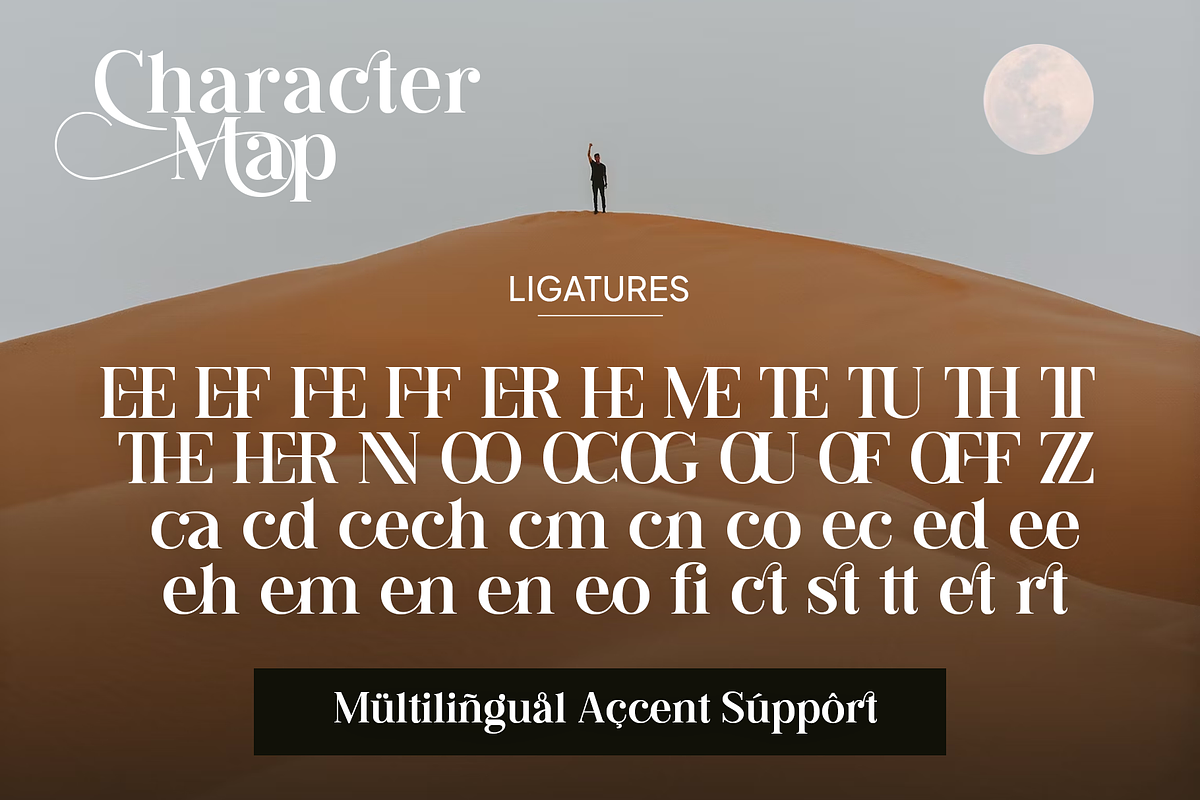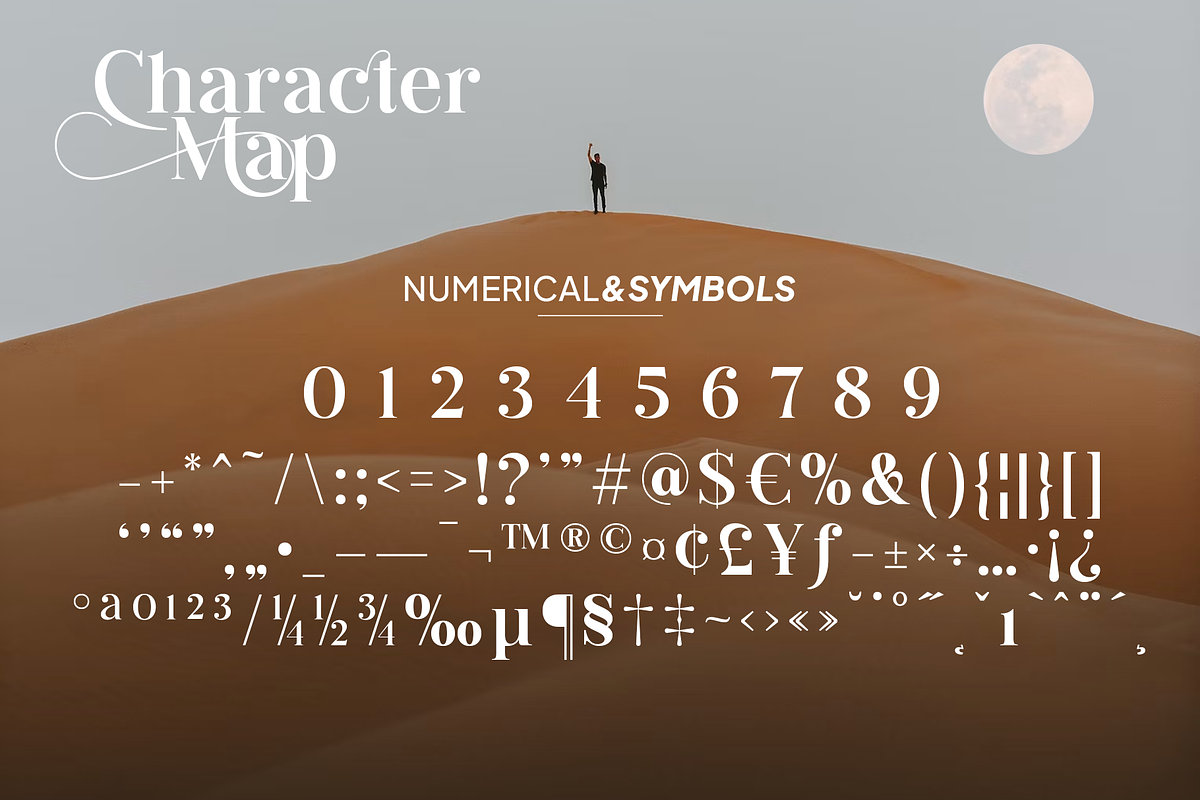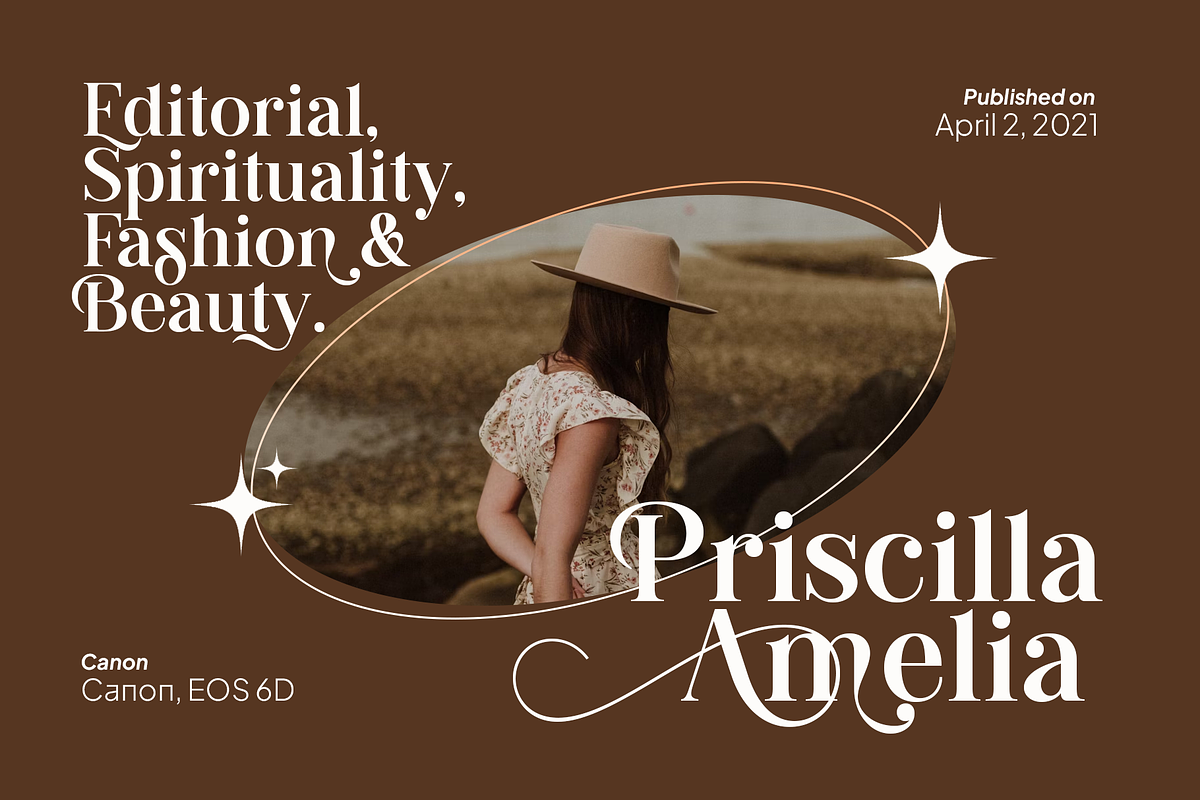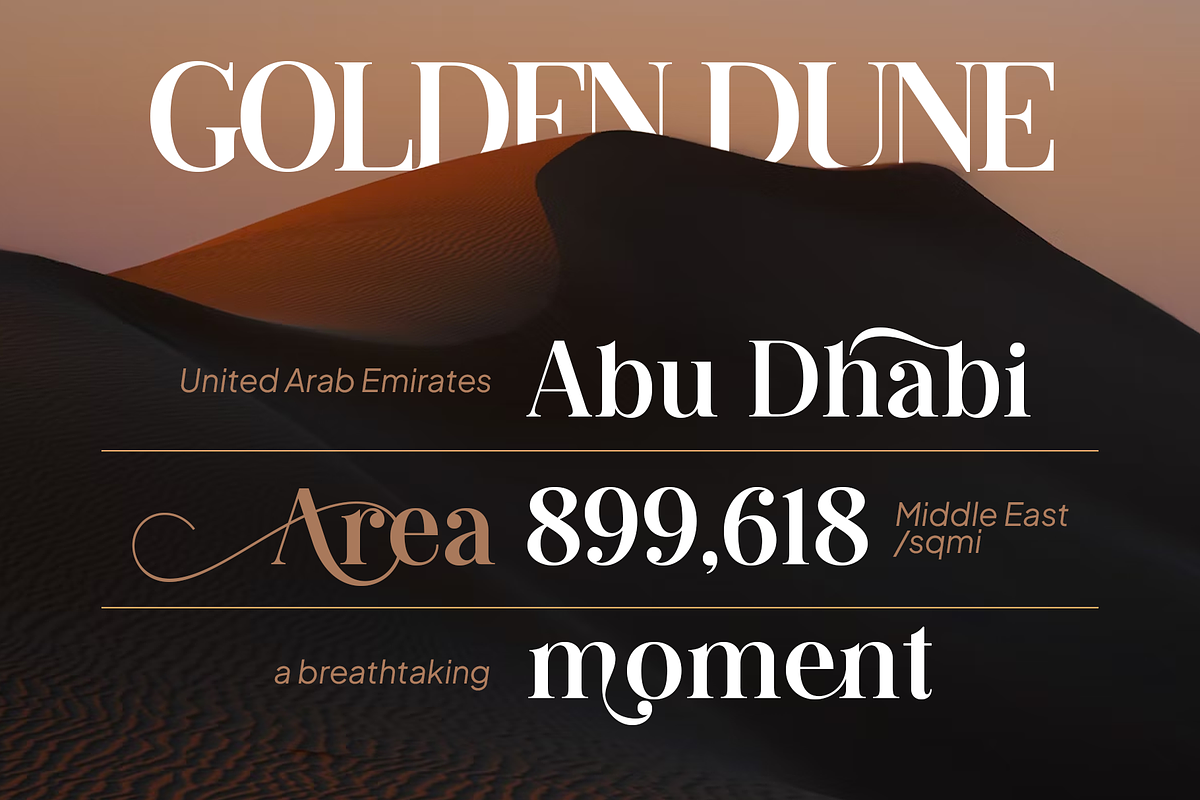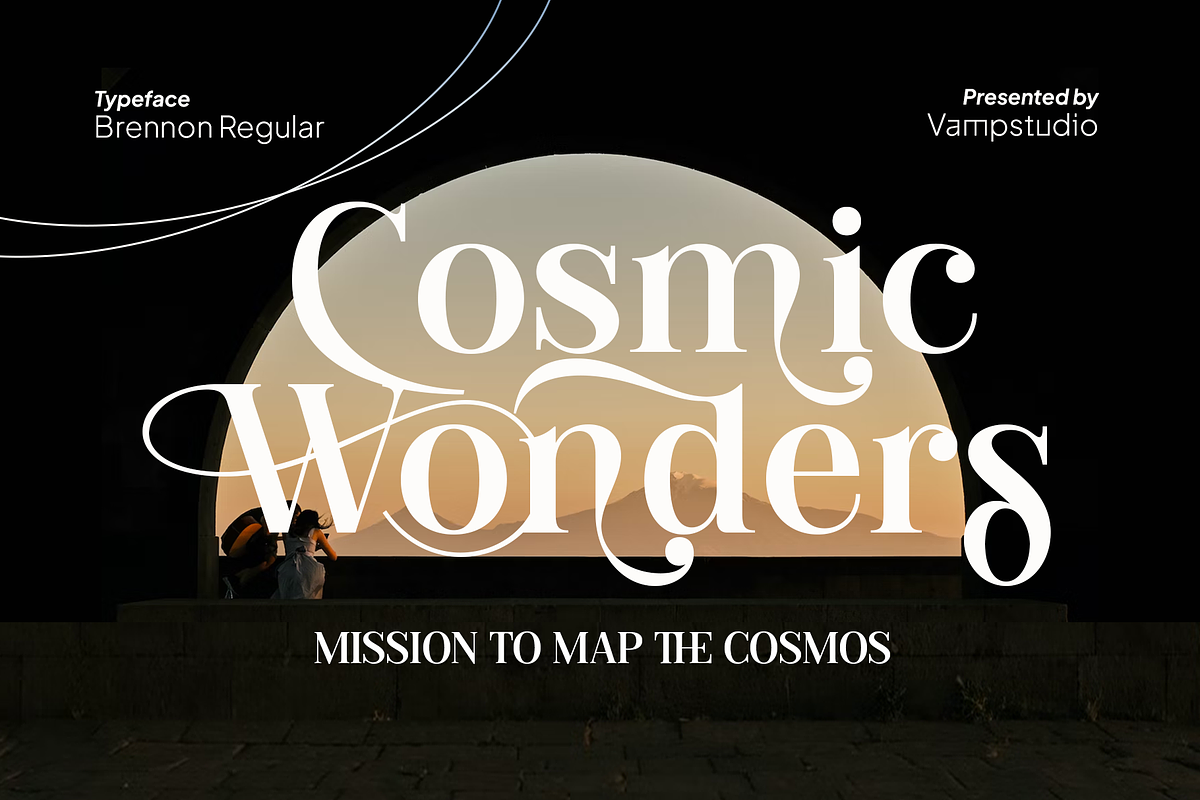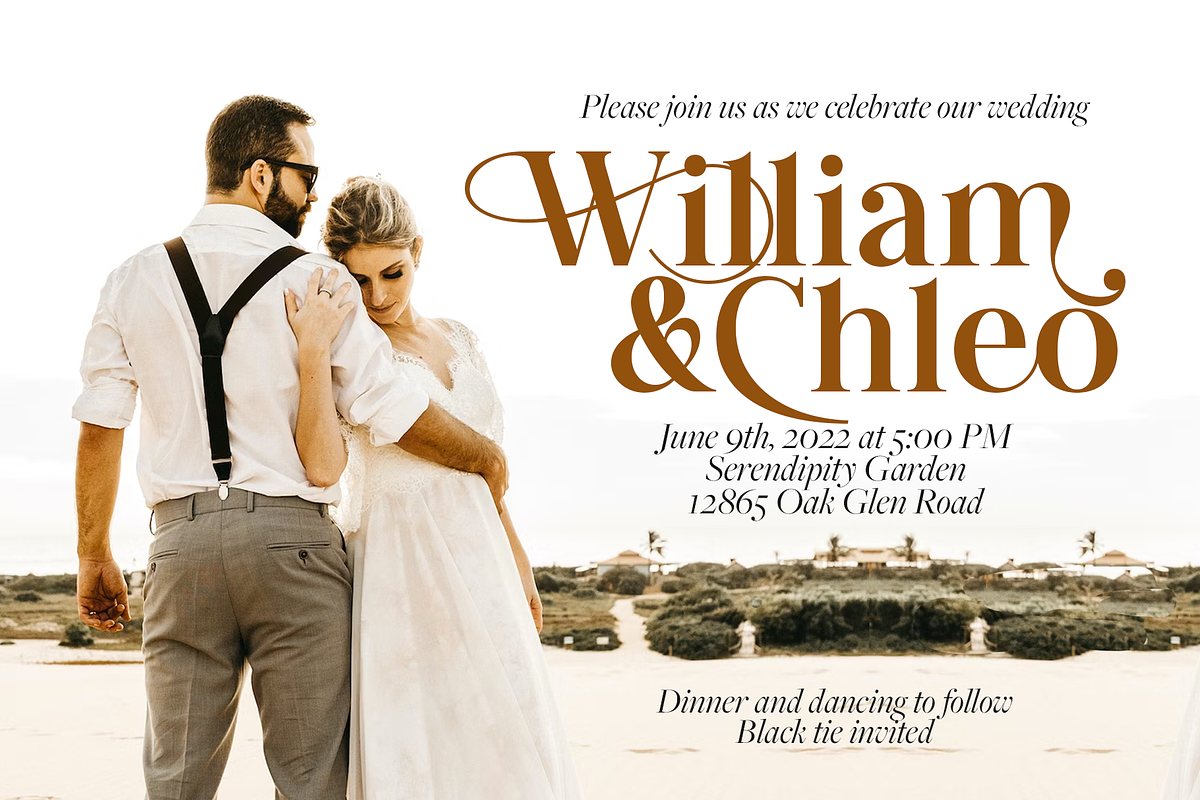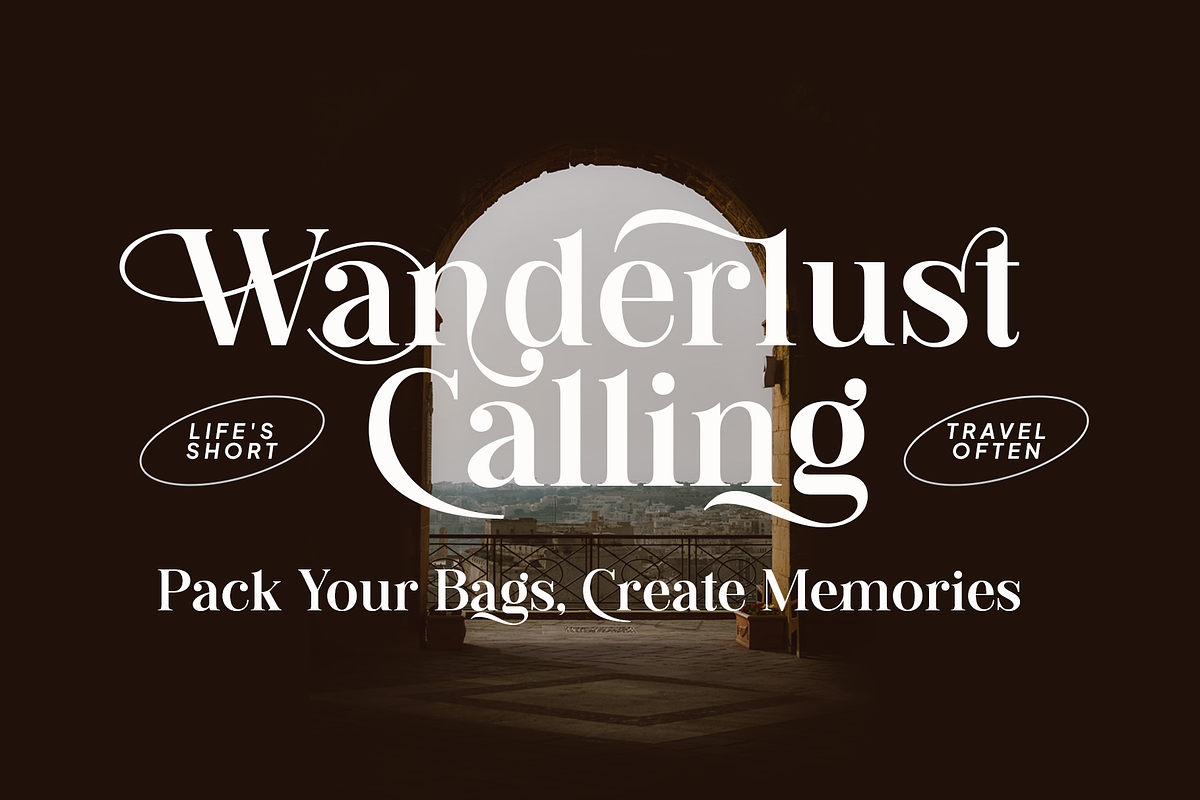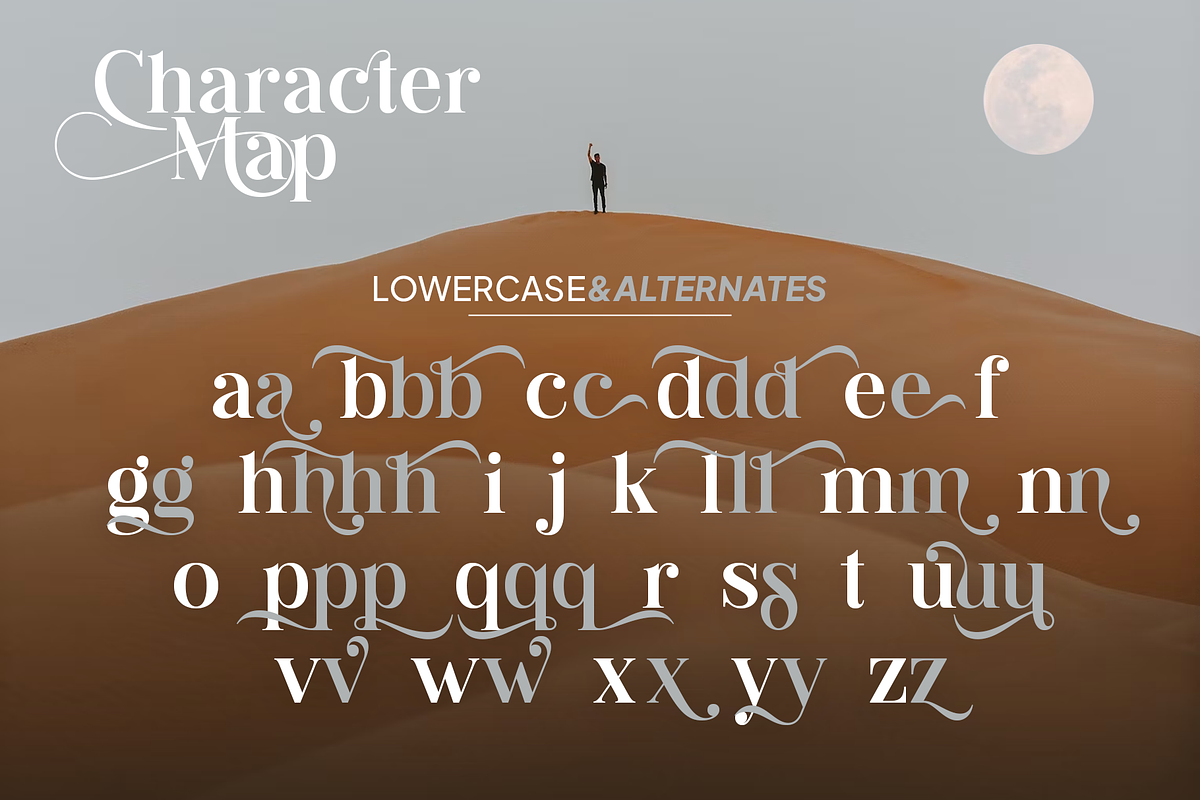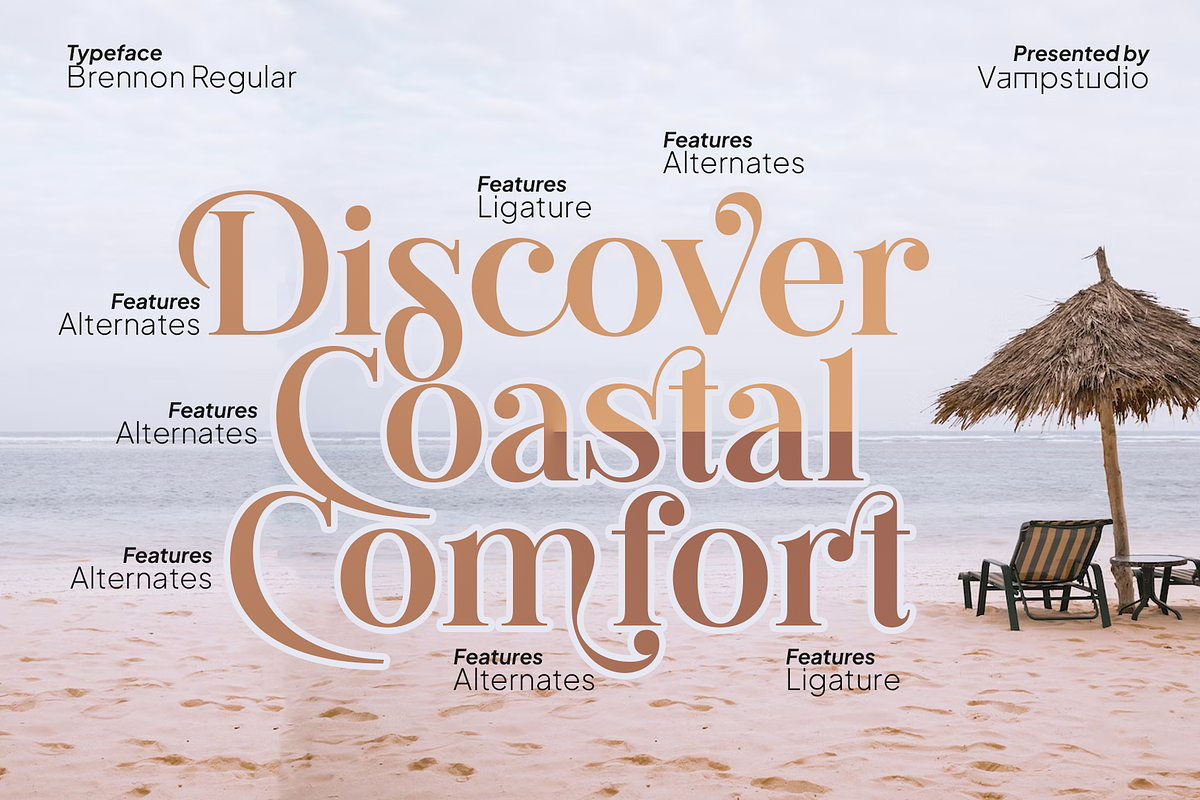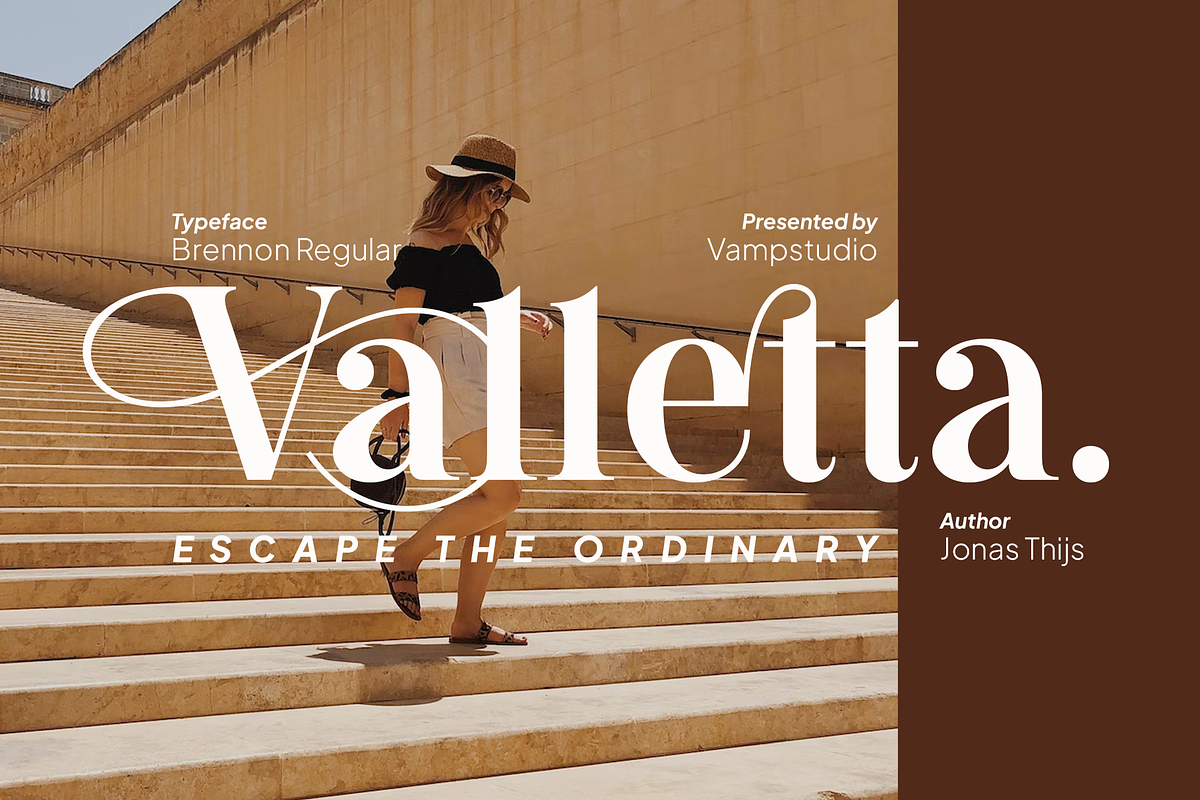
Brennon Stylish Serif Font
Introducing "Brennon Font" – Where Modernity Meets Timeless Elegance in Typography!
Elevate your designs with the sleek sophistication of "Brennon Font," a versatile typeface crafted to bring a touch of modern flair and timeless charm to your creative projects.
- Contemporary Elegance: Brennon Font boasts clean lines and a modern aesthetic, perfect for adding sophistication to branding, editorials, or digital designs.
- Versatile Functionality: Whether for headlines or body text, Brennon Font strikes a balance between elegance and readability, making it ideal for various design applications.
- Timeless Appeal: Rooted in a classic style yet designed for the modern creator, Brennon Font offers a seamless blend of tradition and innovation.
Brennon is perfect for branding projects, logo, wedding designs, social media posts, advertisements, product packaging, product designs, label, photography, watermark, invitation, stationery and any projects that need handwriting taste.